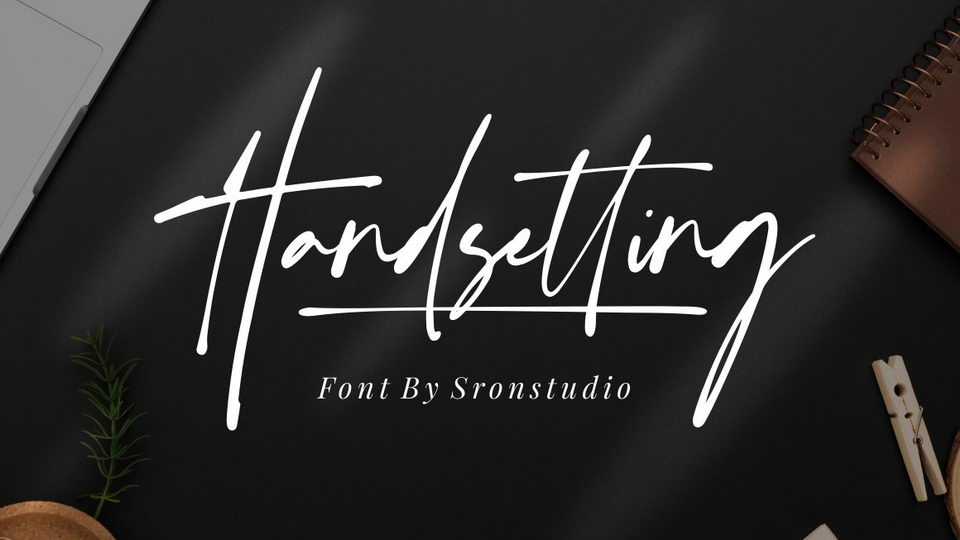
Download Handsetting font, a classy modern signature script that is perfect for branding, invitation, wedding, social media posts, advertisements, label, photography, watermark, special events or anything.
Designer: Sronstudio